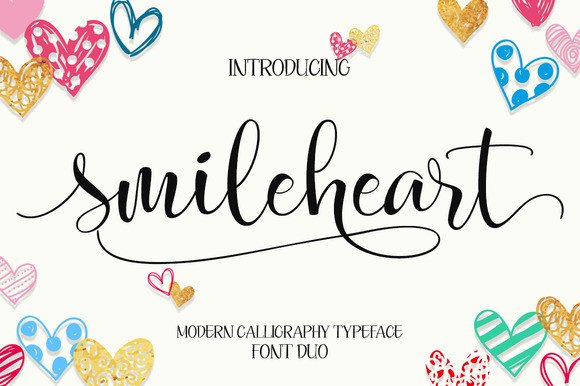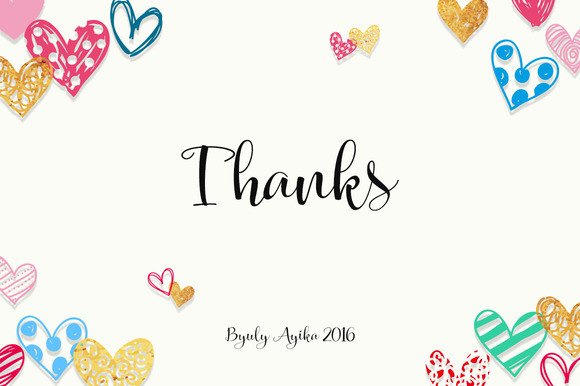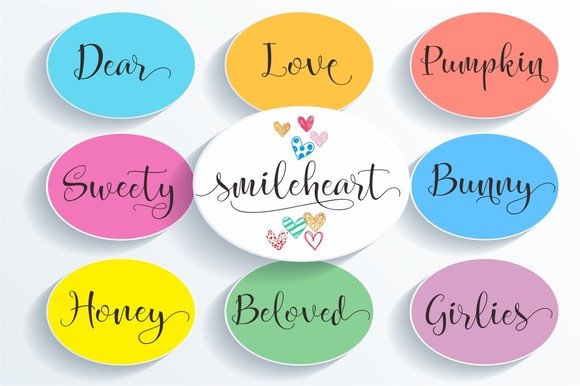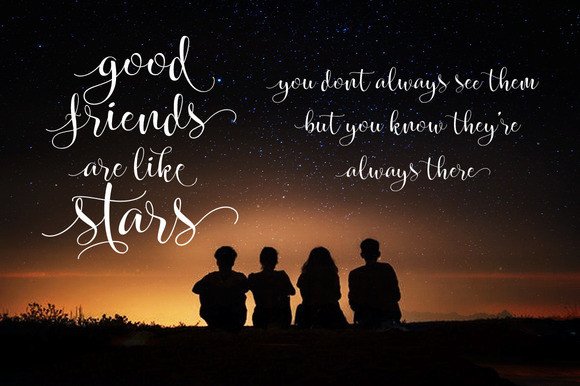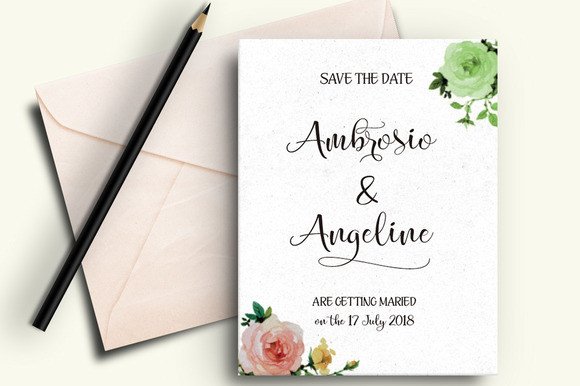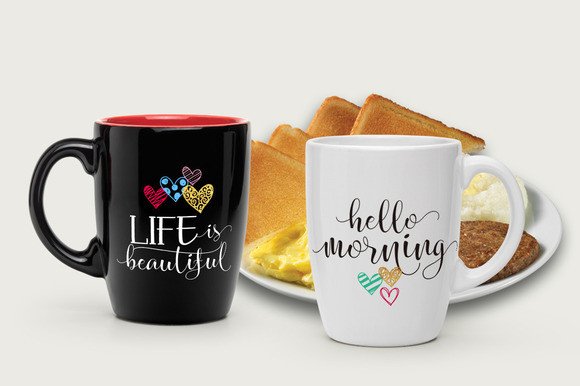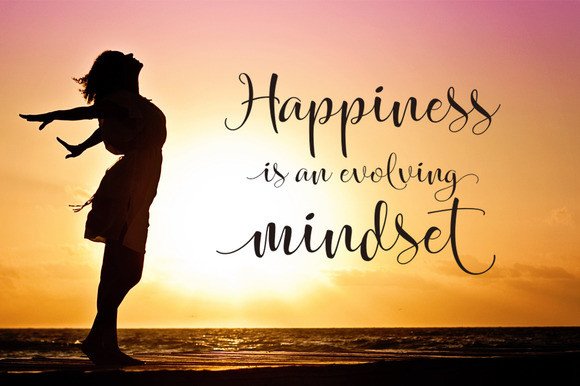
Smileheart Font
About Smileheart Font
Smileheart is a modern handwritten font with clean and beautiful letters.
The letters are easy to read which makes it the perfect font for cards & invites, shirts and many more types of items.
Smileheart comes with over 300 glyphs and is PUA encoded, which means you can easily use it anywhere you want.